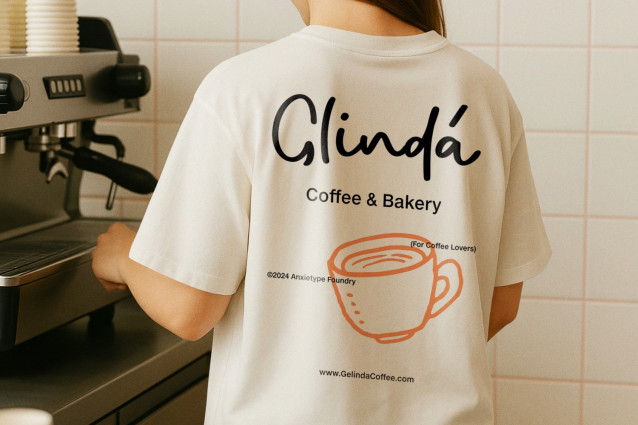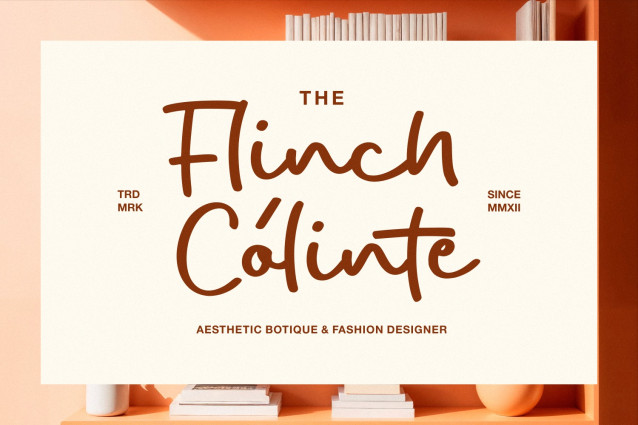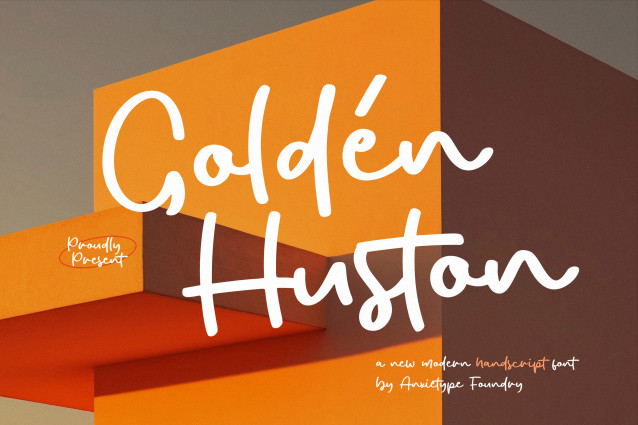
Golden Huston Script Font is a simple and friendly handwritten font. Its natural and unique style makes it incredibly fitting to a large pool of designs. The only limit is your imagination!